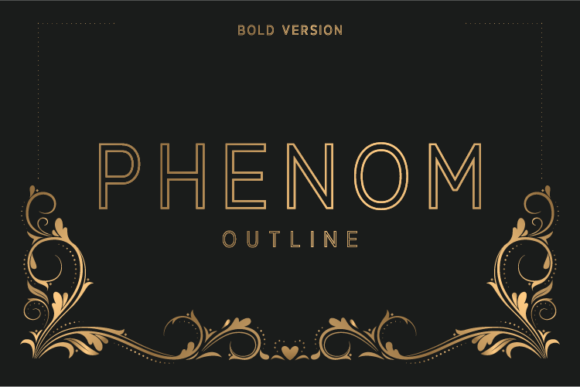
Unleash the captivating allure of Phenom Outline Bold, a typeface crafted with elegance and audacity. This contemporary sans serif font transcends the ordinary, inviting you to embark on a typographic journey that will leave an unforgettable impression.
Phenom Outline Bold seamlessly fuses the smoothness of flowing curves with the crispness of sharp angles, creating a captivating dance of visual intrigue. Its delicate outline adds a touch of ethereal grace, transforming your designs into captivating masterpieces.
Every letterform in Phenom Outline Bold exudes personality and flair. The bold strokes command attention, while the intricate details whisper secrets of refinement and sophistication. This font is not merely a collection of characters; it is an orchestra of visual harmony, ready to orchestrate a symphony of stunning designs.
Whether you're crafting logos that demand recognition or designing web pages that allure, Phenom Outline Bold is the perfect choice. Its versatility empowers you to effortlessly adapt it to any design aesthetic, from minimalist chic to opulent grandeur.
Indulge in the limitless possibilities that Phenom Outline Bold offers. Let your creativity soar as you wield this typographic masterpiece, transforming ordinary designs into extraordinary works of art. Embrace the power of Phenom Outline Bold and experience the transformative magic of truly exceptional typography.